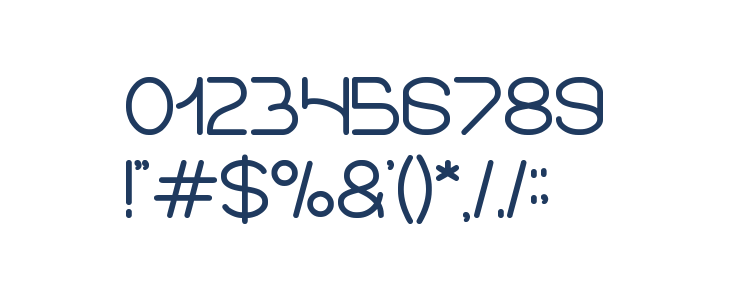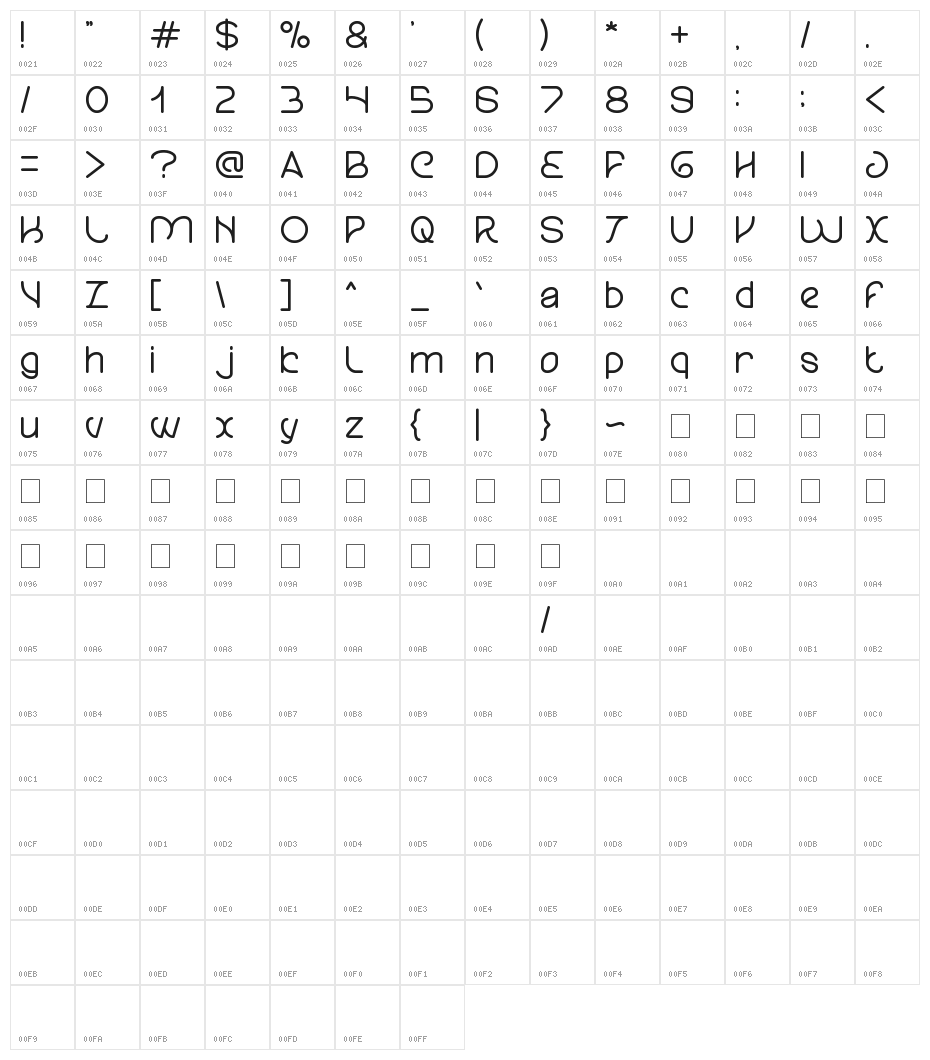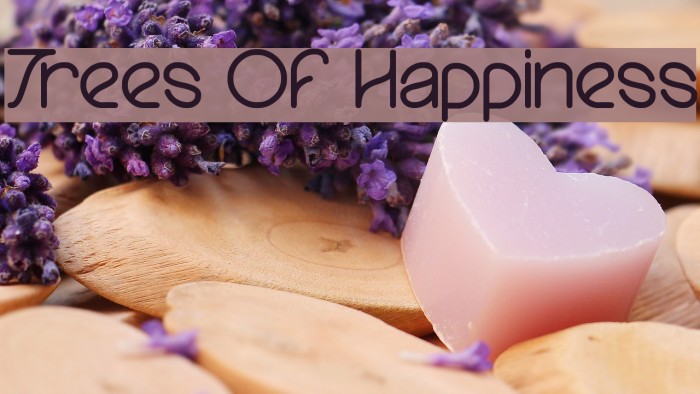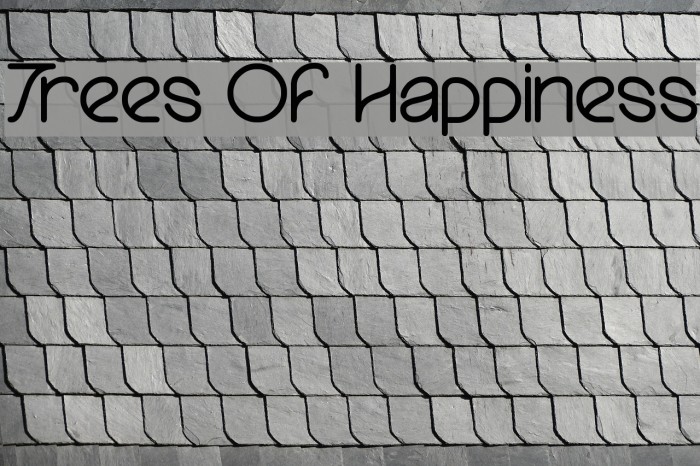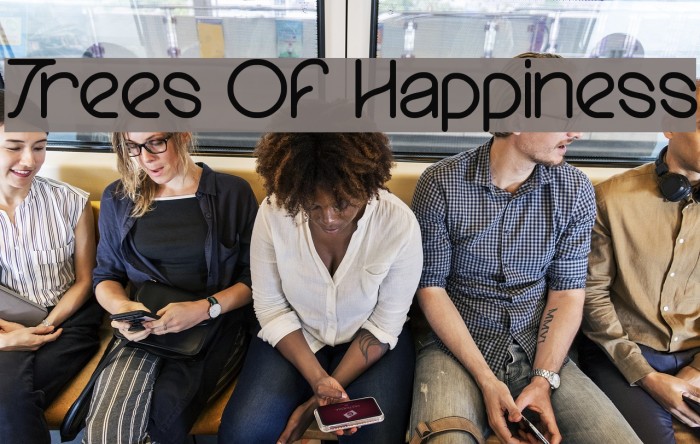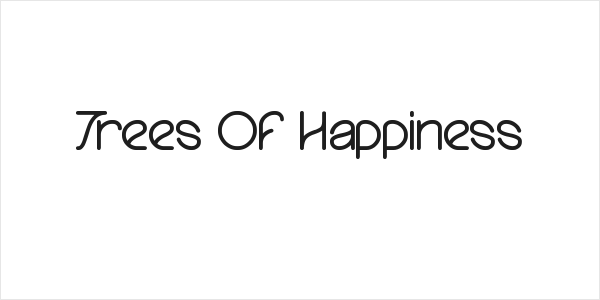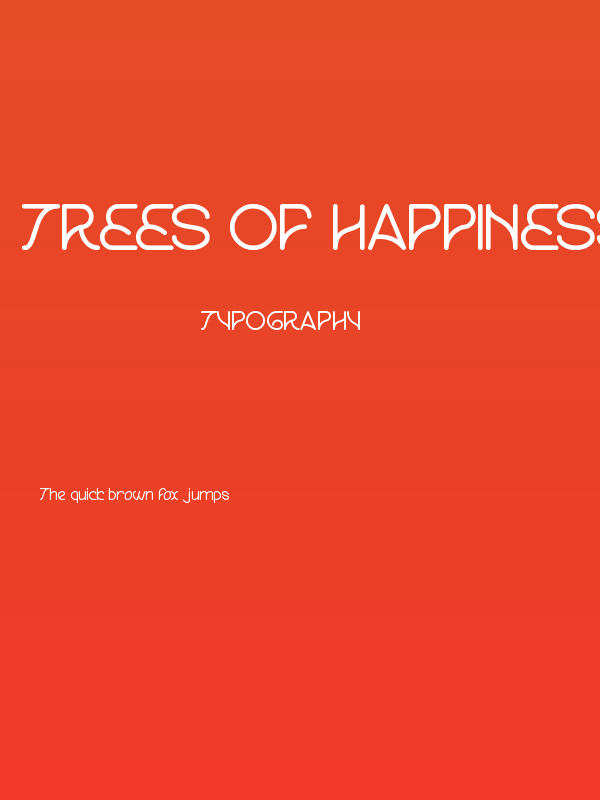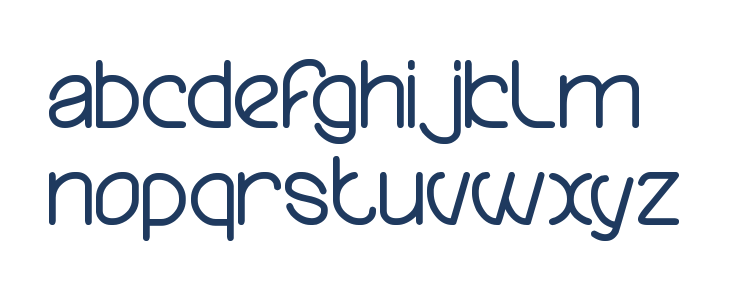
Trees Of Happiness Font
Trees Of Happiness Description
This font features a modern and playful design with rounded edges and a consistent stroke width. The characters are smooth and connected, giving a sense of fluidity and continuity. Uppercase and lowercase letters maintain a uniform height, contributing to a cohesive appearance. The numbers and special characters are designed to match the overall style, ensuring visual harmony across all elements. This font's simplicity and rounded forms make it approachable and friendly, suitable for a variety of design contexts.
| Use Case | Headlines, Logos, Casual Text |
| Proposed Projects | Ideal for children's books, playful branding, casual invitations, and modern web design. |